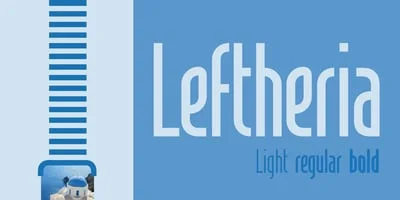
Leftheria Font
Leftheria Font excels in freedom design applications including independence movement materials, liberation organization branding, freedom advocacy campaigns, revolutionary art exhibitions, civil rights documentation, democratic reform communications, social justice publications, human rights presentations, freedom festival promotions, and empowerment lifestyle campaigns. This liberating typeface brings authentic freedom spirit to justice-focused design projects.
What makes Leftheria Font truly exciting is its perfect embodiment of liberation ideals with bold letterforms that convey strength, independence, and the unwavering determination of those who fight for freedom through revolutionary design elements. The font features courageously crafted characters with liberation proportions and freedom appeal that reflect resistance, dignity, and the transformative power of democratic movements. Its revolutionary personality and freedom character make it ideal for brands celebrating human rights, social justice, and audiences who appreciate liberation struggles, democratic values, and the ongoing fight for freedom and equality that defines human progress.
The Leftheria Font family typically includes Regular weight with potential bold variations and liberation elements that enhance its freedom character. These revolutionary options provide designers with complete liberation styling while maintaining the font's distinctive freedom elegance and democratic presentation across various justice applications and liberation contexts.
Whether you're developing human rights branding, creating freedom campaigns, or designing liberation marketing materials, Leftheria Font provides the freedom authority and revolutionary sophistication that justice-focused projects require. Its exceptional courage and liberation appeal make it invaluable for designers working with human rights organizations, freedom movements, and justice-focused brands requiring typography that celebrates democratic values, promotes human dignity, and reflects the eternal struggle for freedom that drives humanity forward through the courage of those who refuse to accept oppression and fight tirelessly for liberation and equality.